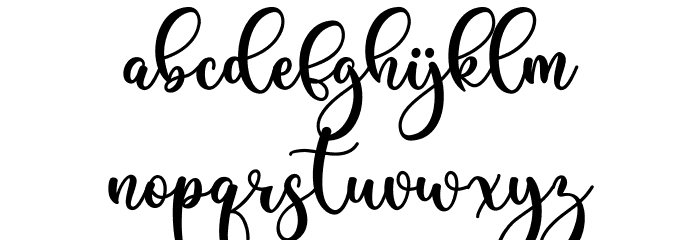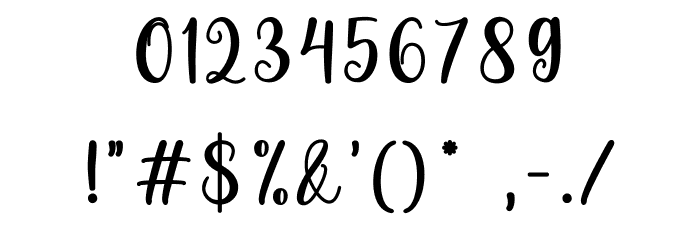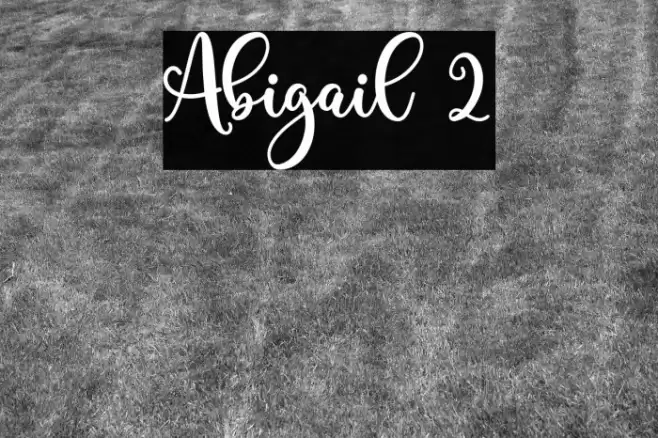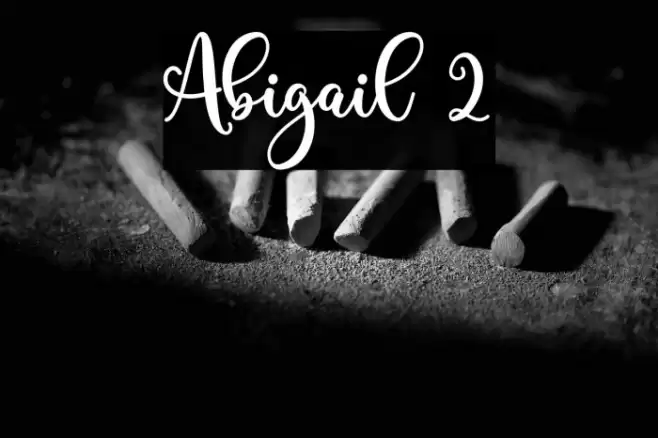
Abigail 2 Font
This font features an elegant and flowing script style, characterized by its smooth, cursive letterforms. The uppercase letters are ornate, with swirling embellishments that add a touch of sophistication. The lowercase letters maintain a consistent flow, with gentle curves and loops that enhance readability while retaining a decorative flair. The numerals are bold and slightly rounded, complementing the overall aesthetic. Special characters are designed with the same attention to detail, ensuring a cohesive look across all glyphs. This font is ideal for projects that require a touch of elegance and personality.
An elegant, flowing script font with ornate uppercase and smooth lowercase letters.
- Font: Abigail 2
- Proposed Projects: Wedding invitations, greeting cards, branding, and logo design.
- Category: Script
- Use Case: Logos, Invitations, Decorative text